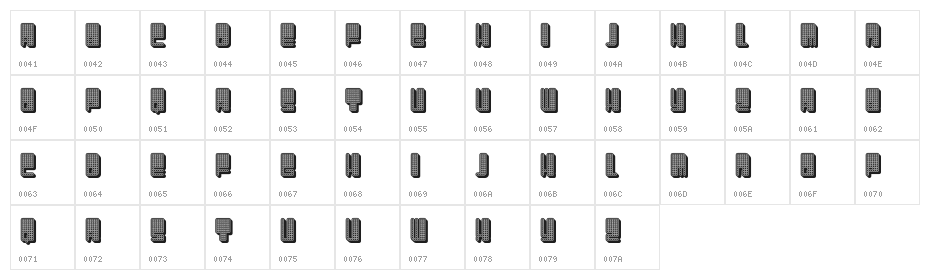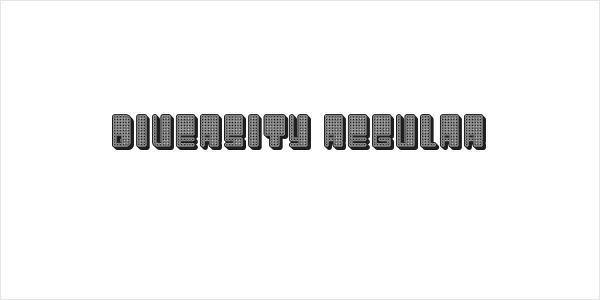
Diversity Regular Font
Diversity Regular Description
This font features a bold, decorative style with a unique geometric pattern filling each character. The letters are outlined with a thick black border, giving them a strong presence and a three-dimensional effect. The interior pattern consists of a series of interconnected circles, creating a visually intriguing texture. This font is highly stylized, making it ideal for eye-catching designs. The uppercase and lowercase letters maintain a consistent style, and the numbers and special characters are equally distinctive, ensuring a cohesive look across all text elements.
| Proposed Projects | Ideal for poster designs, branding projects, and any creative work that requires a standout, artistic font. |